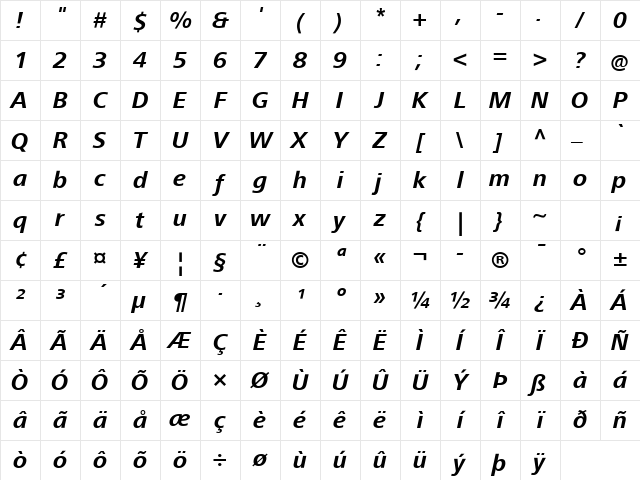
Complete FrutigerNextLT Bold Italic glyph index. Displaying only characters natively supported by FrutigerNextLT Bold Italic font.
FrutigerNextLT is a composed and adaptable typeface that performs quietly and consistently across a wide range of design contexts. The slanted form adds forward momentum and visual energy. Its bold stroke weight gives it real presence on the page.
Pro Tip: Use FrutigerNextLT for emphasis, pull quotes, and subheadings where its slanted energy can add rhythm to the layout.